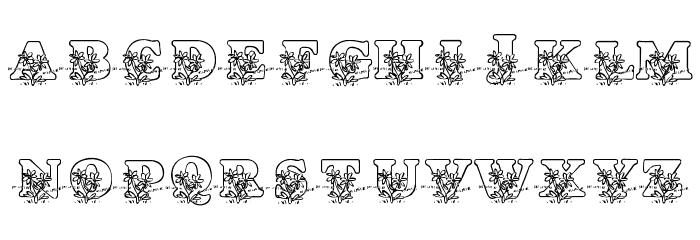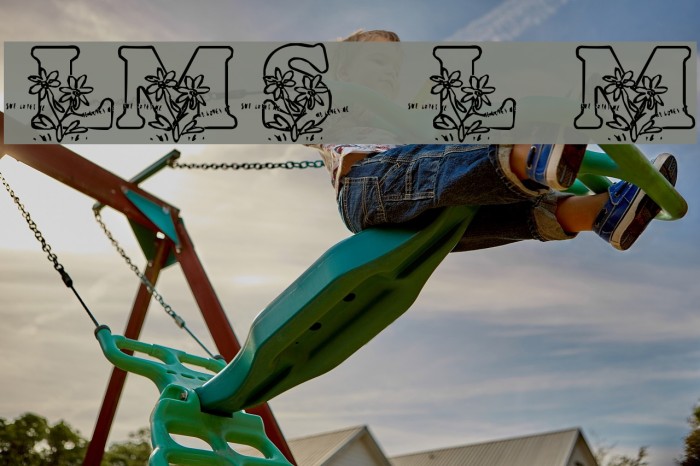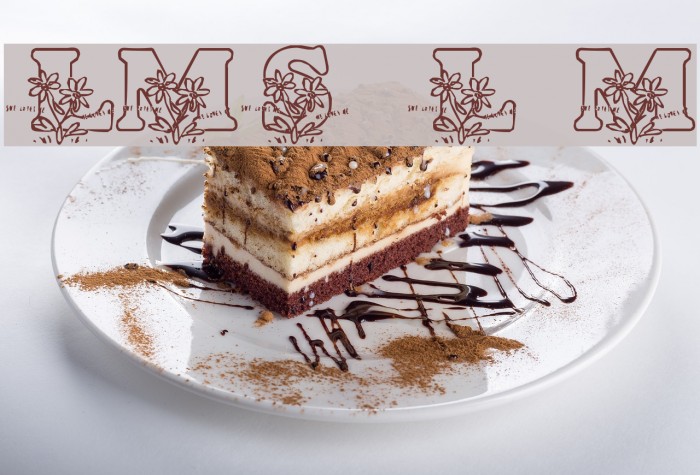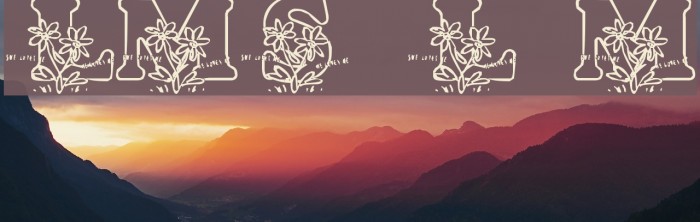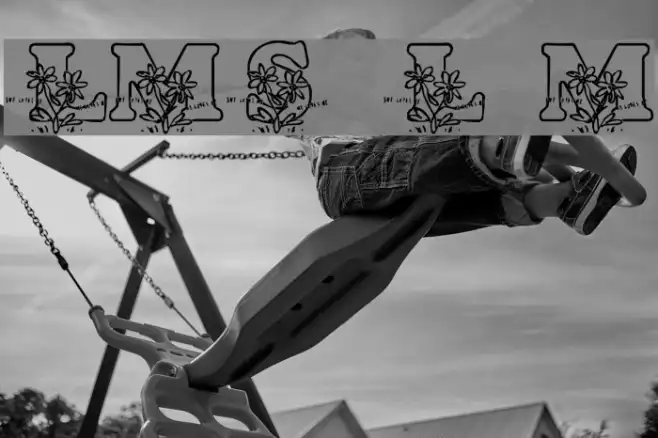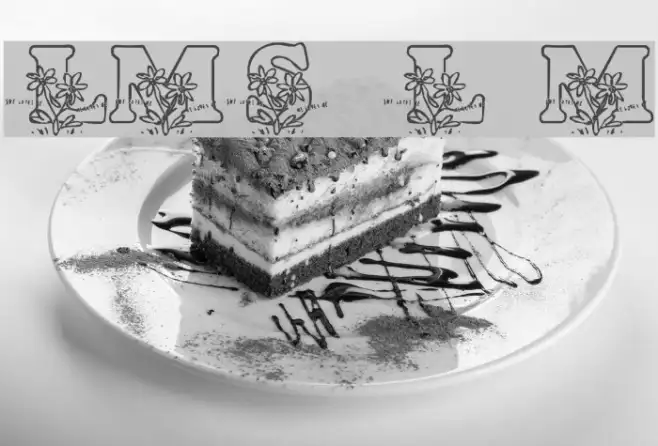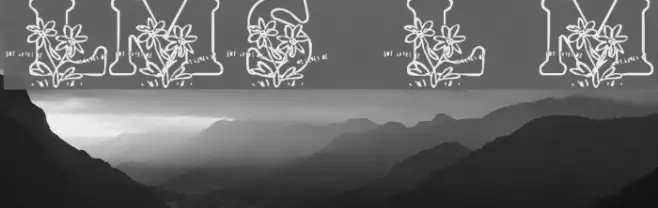
LMS Loves Me Font
This decorative font features a unique floral design integrated into each letter, creating an intricate and artistic appearance. The uppercase letters are adorned with detailed flower motifs, giving them a whimsical and elegant look. The font's outline style adds to its charm, making it stand out as a display typeface. The floral elements are consistent across all characters, providing a cohesive and harmonious aesthetic. This font is ideal for projects that require a touch of nature and creativity, such as wedding invitations, greeting cards, or artistic branding. Its decorative nature makes it more suitable for headlines or short text rather than body copy.
A decorative font with floral motifs integrated into each letter, perfect for artistic projects.
- Font: LMS Loves Me
- Proposed Projects: Wedding invitations, greeting cards, artistic branding, decorative posters.
- Use Case: Headlines, Artistic projects